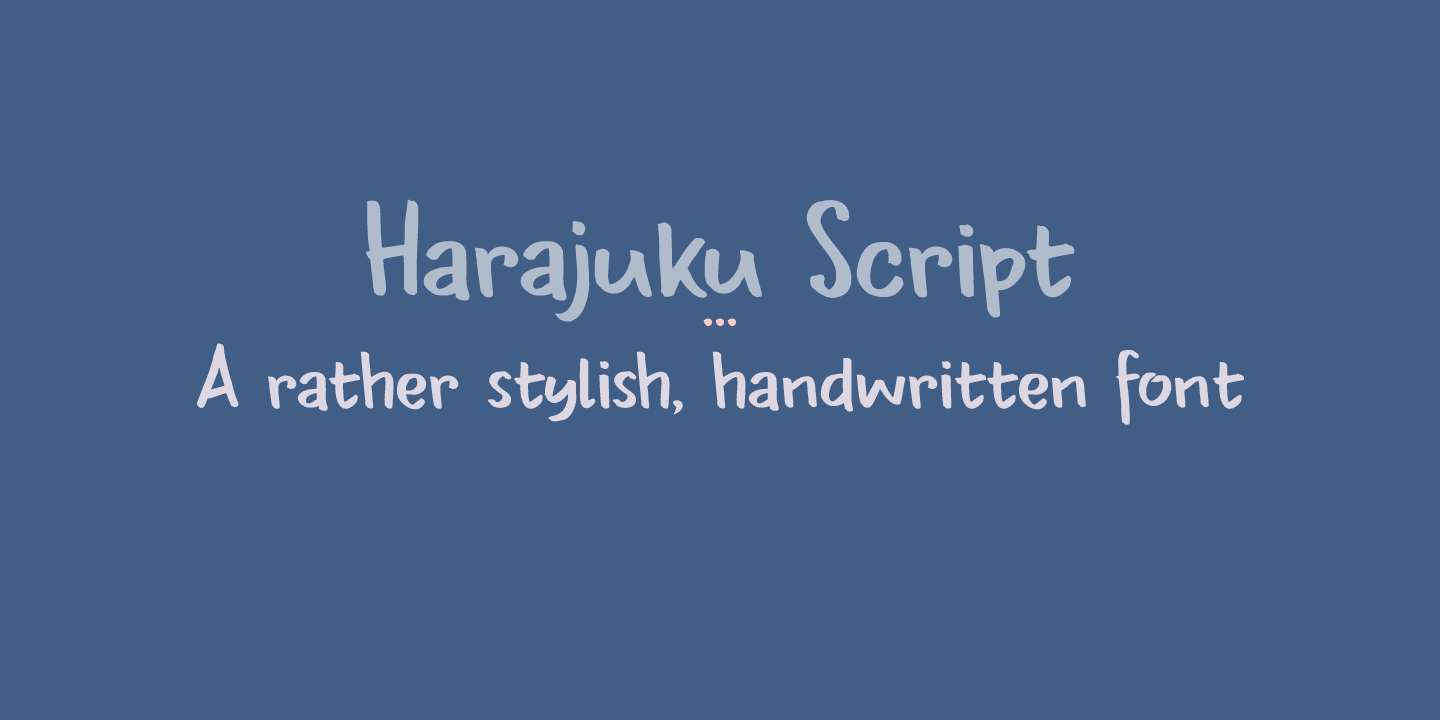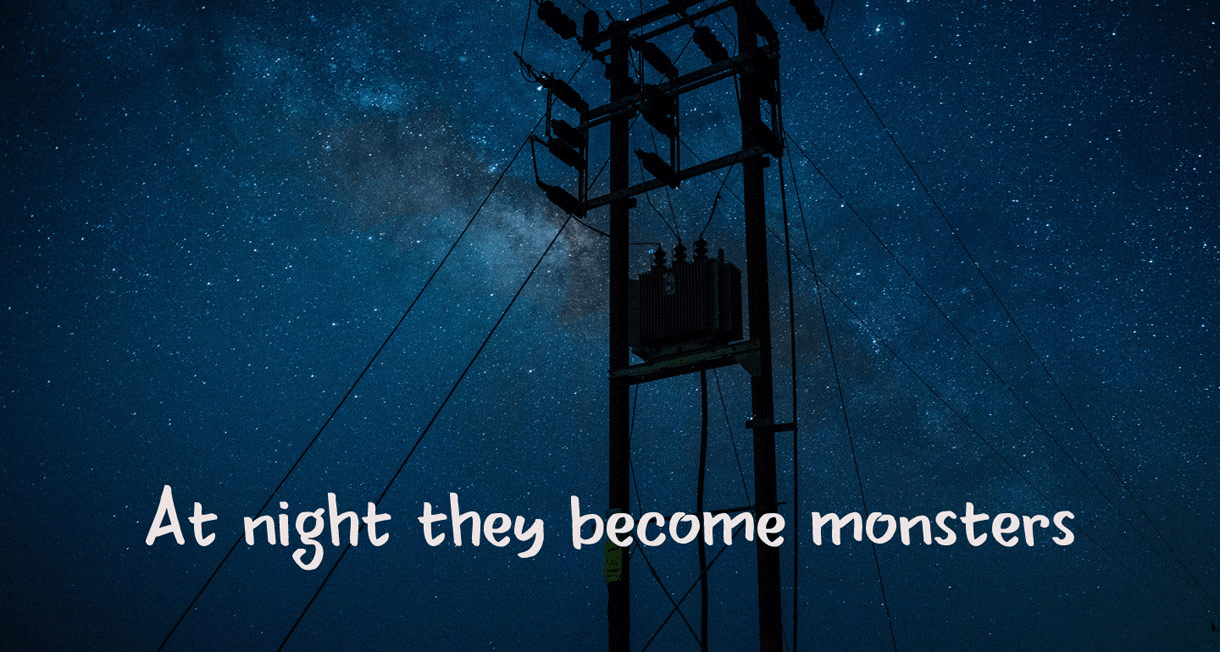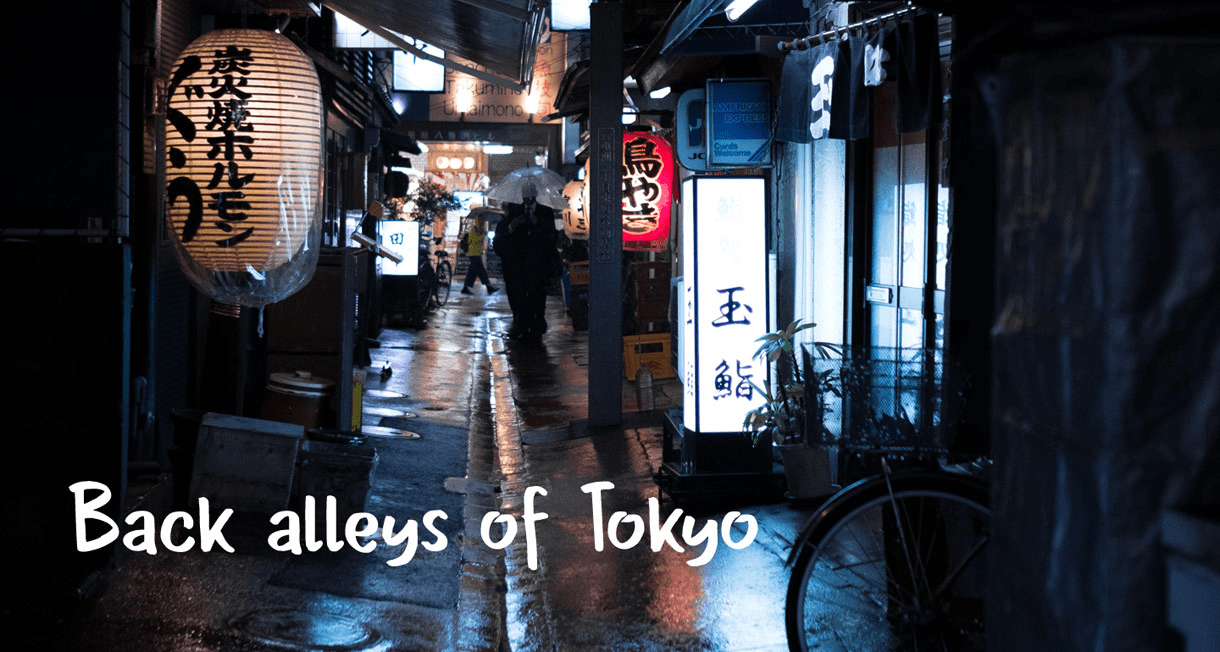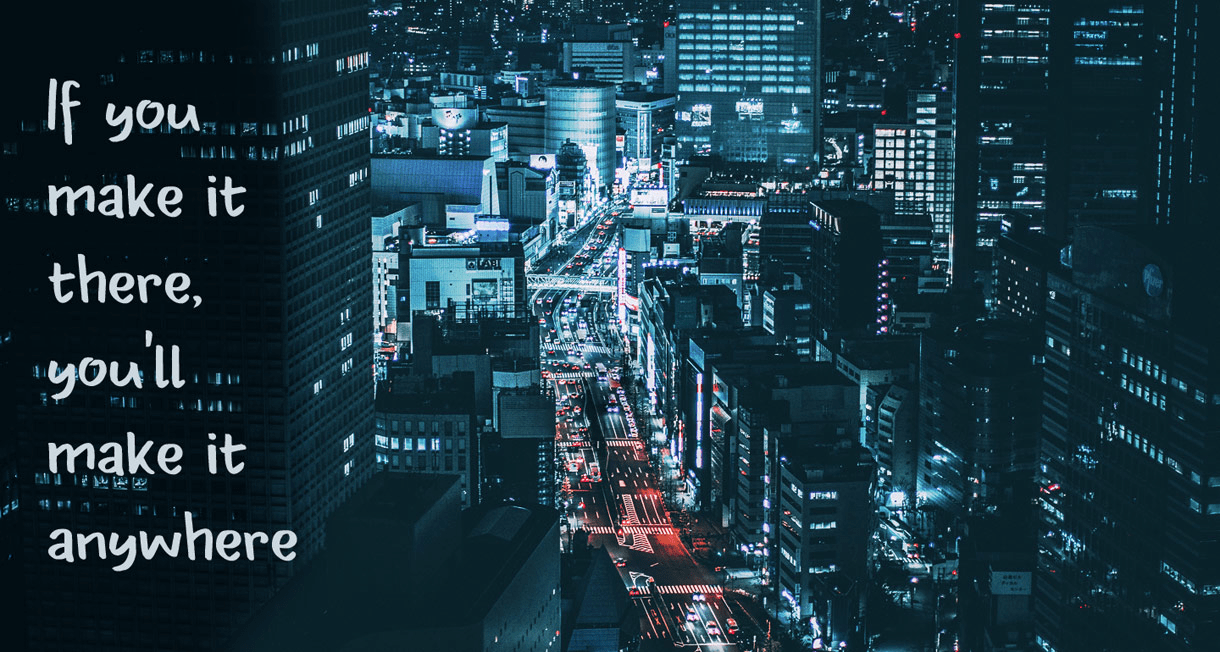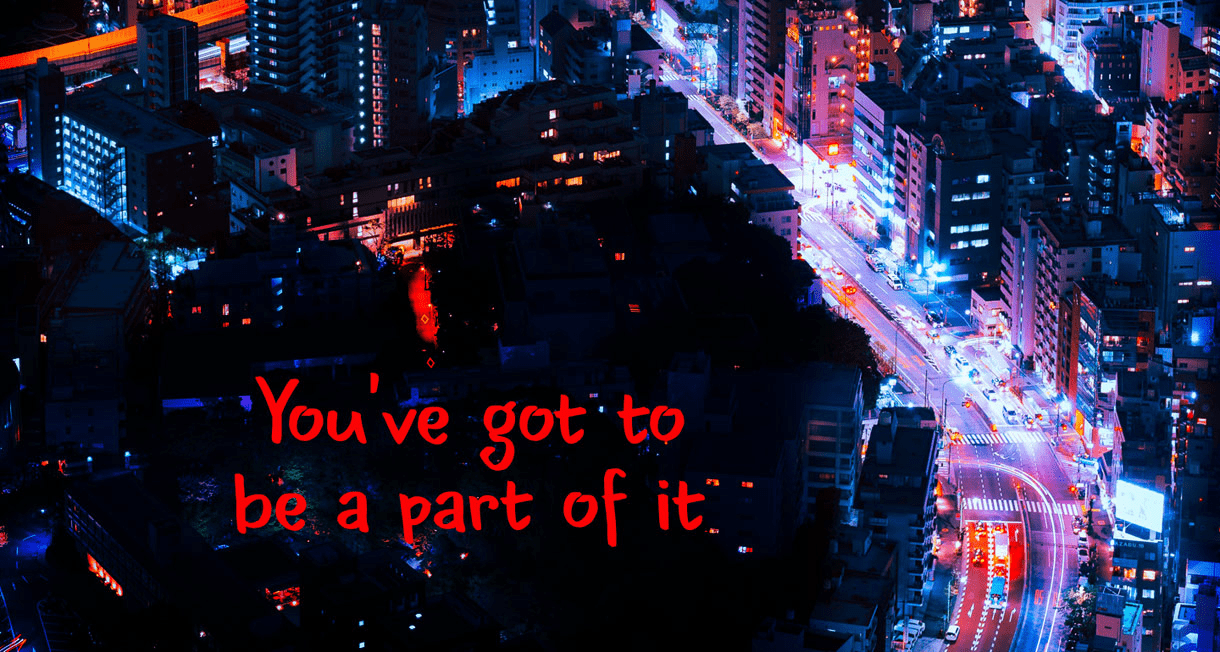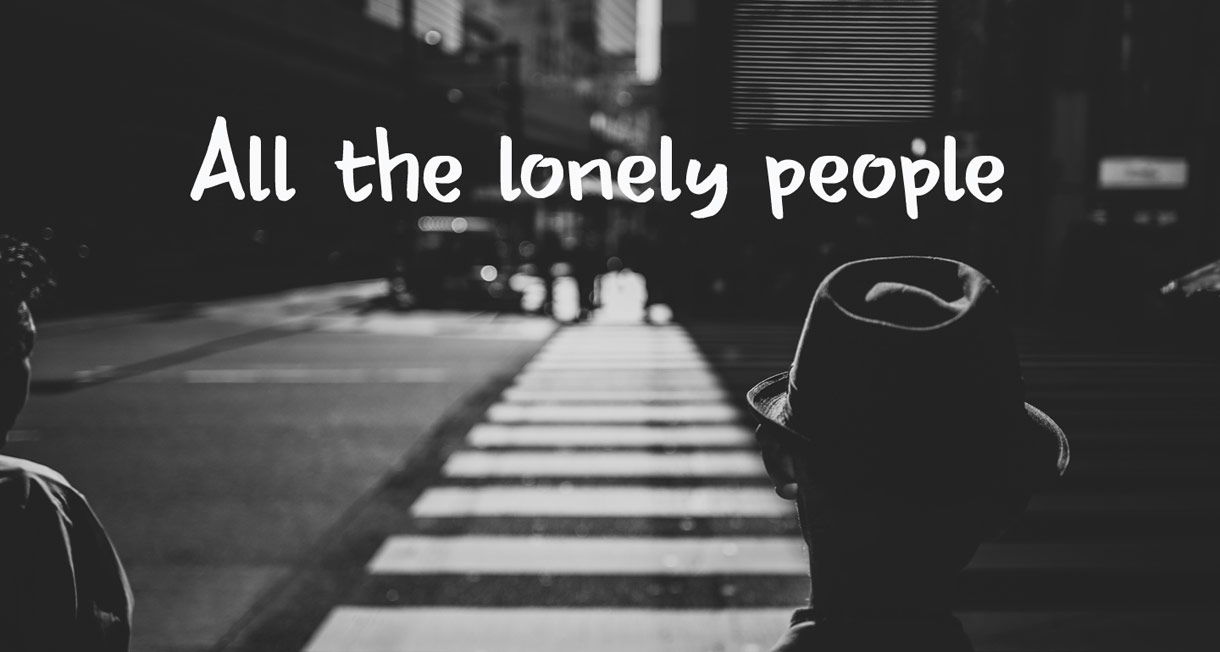
Harajuku Script
Harajuku Script is an ‘easy-on-the-eye’ script font. I made it with a Japanese brush pen. The font is quite stylish, so I named it after Tokyo’s Harajuku area, which is known internationally as a center of Japanese youth culture and fashion.
Harajuku Script would look good anywhere, but product packaging, websites and magazines could profit from this handwritten gem.